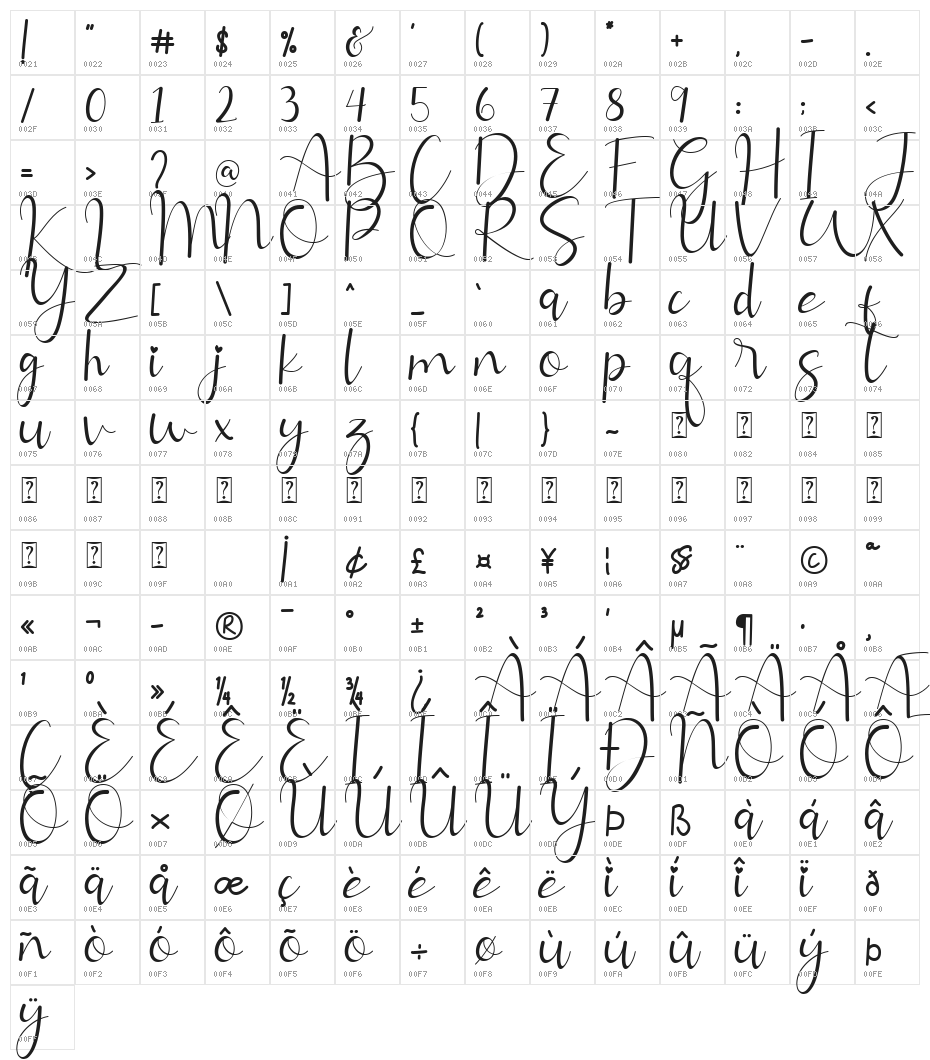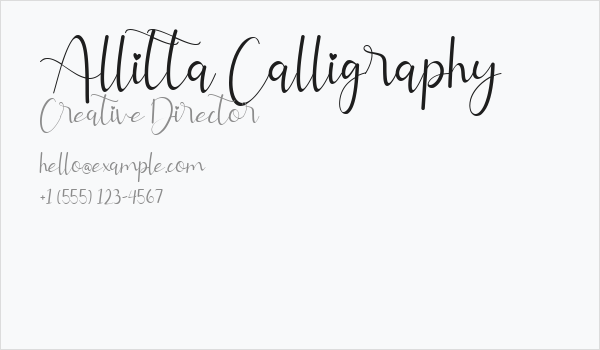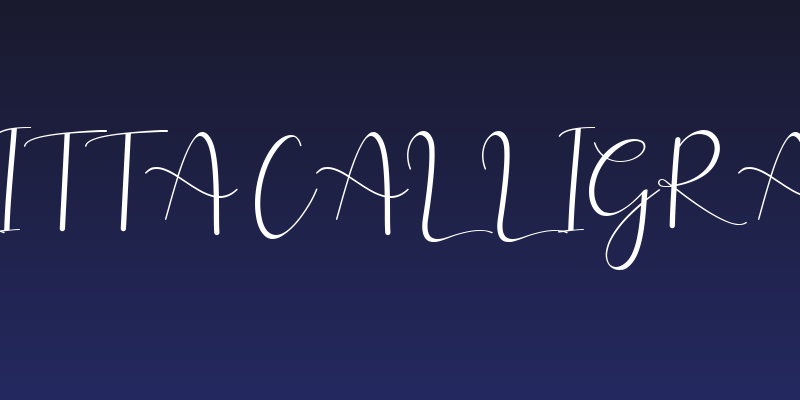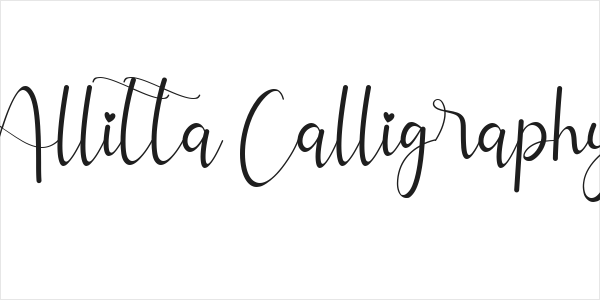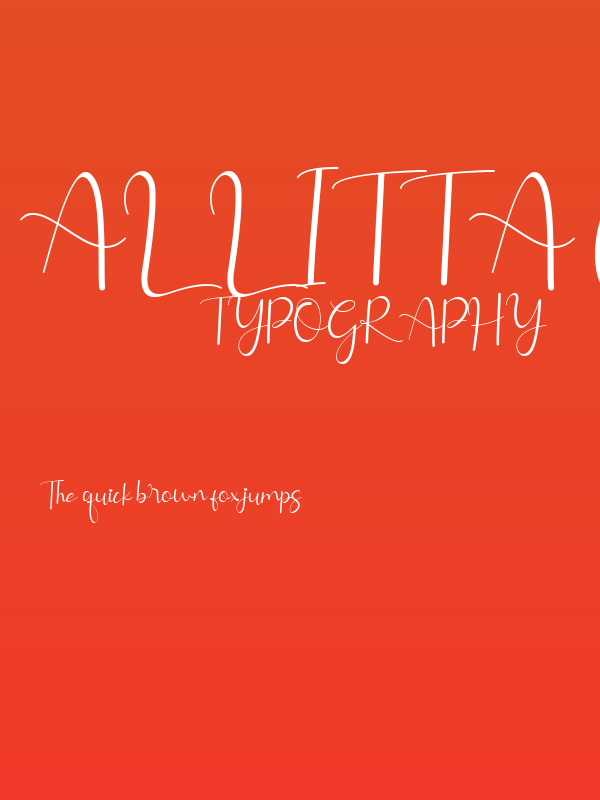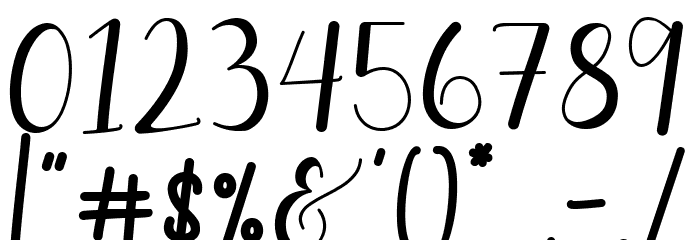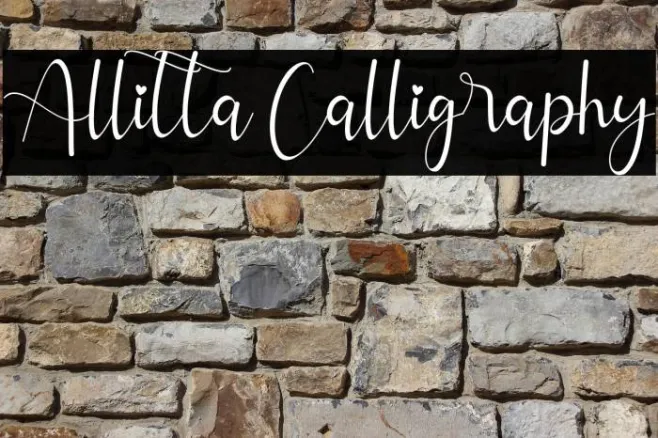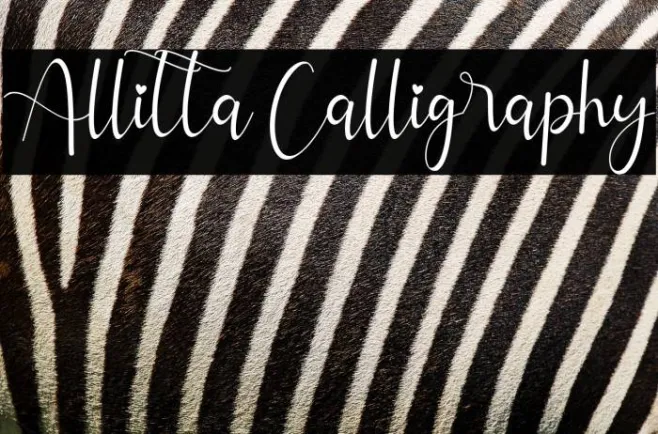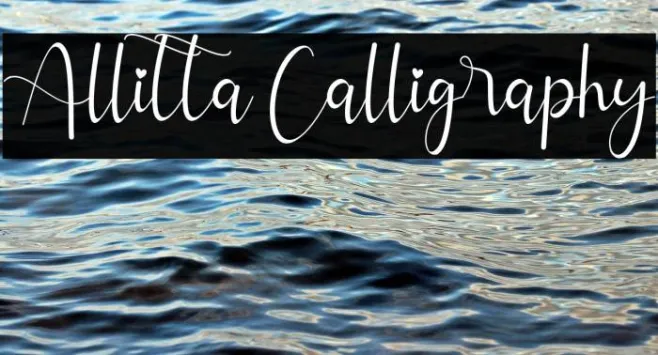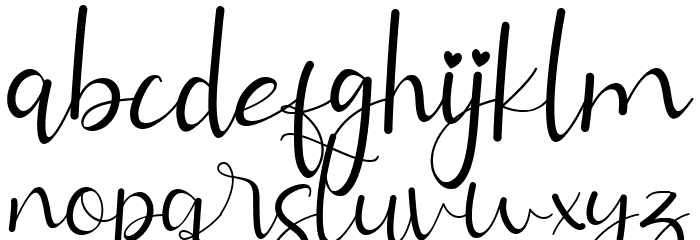
Allitta Calligraphy Font
Allitta Calligraphy Description
This elegant script font features flowing, interconnected letters with a hand-drawn appearance. The uppercase letters are tall and graceful, with sweeping curves and loops that give a sense of movement and fluidity. The lowercase letters are equally stylish, maintaining a consistent stroke width that adds to the font's cohesive look. Numbers and special characters are designed with the same attention to detail, ensuring they blend seamlessly with the alphabet. This font's calligraphic style is both sophisticated and approachable, making it suitable for a variety of creative projects.
| Overall Style | Elegant, Calligraphic |
| Proposed Projects | Ideal for wedding invitations, greeting cards, branding, and elegant logos. |